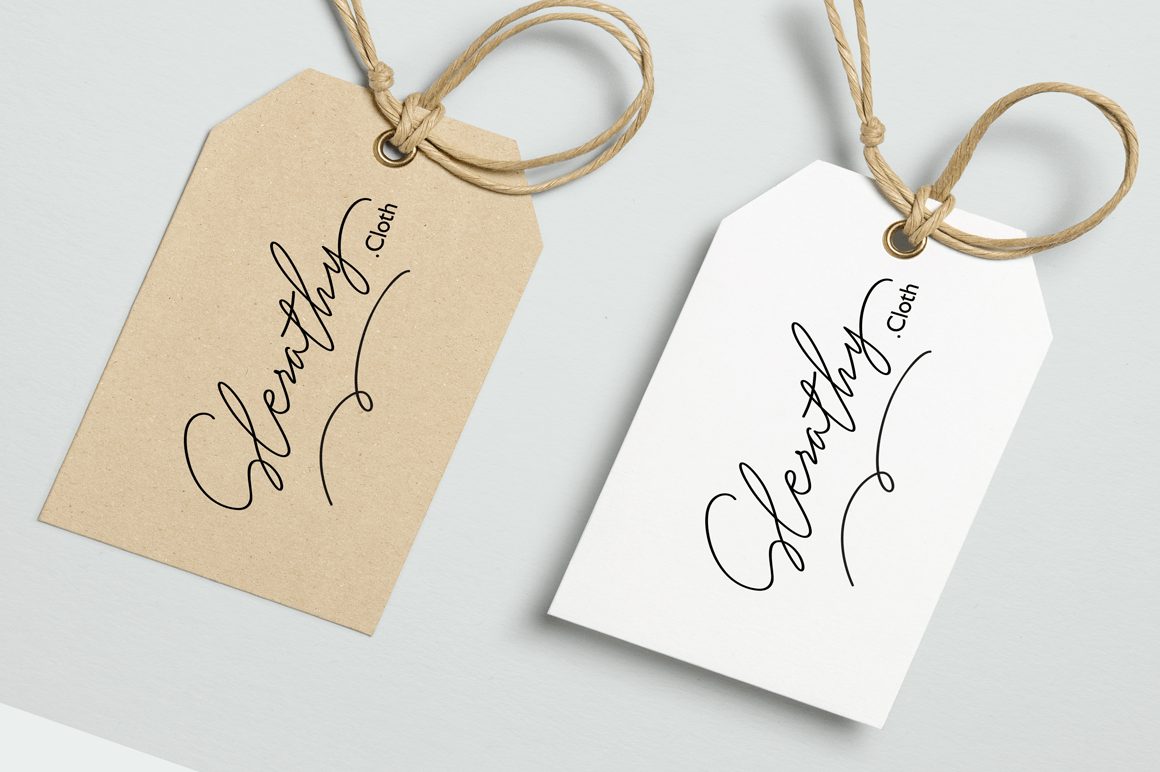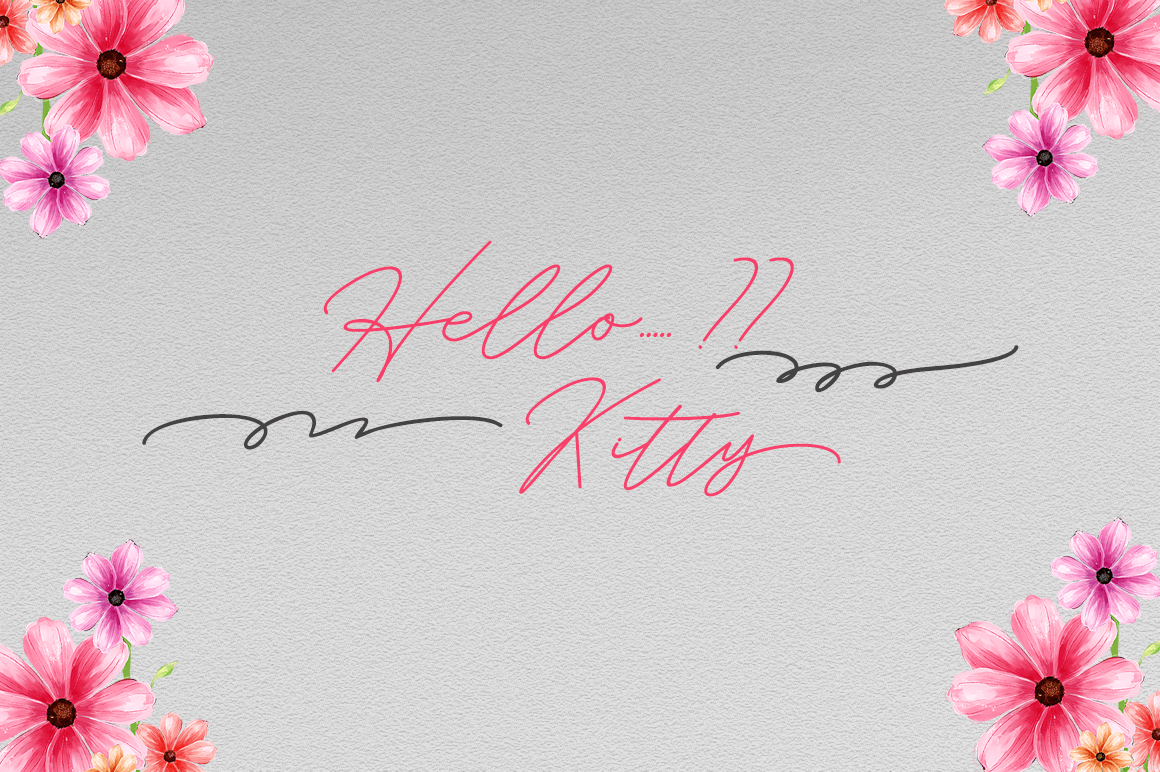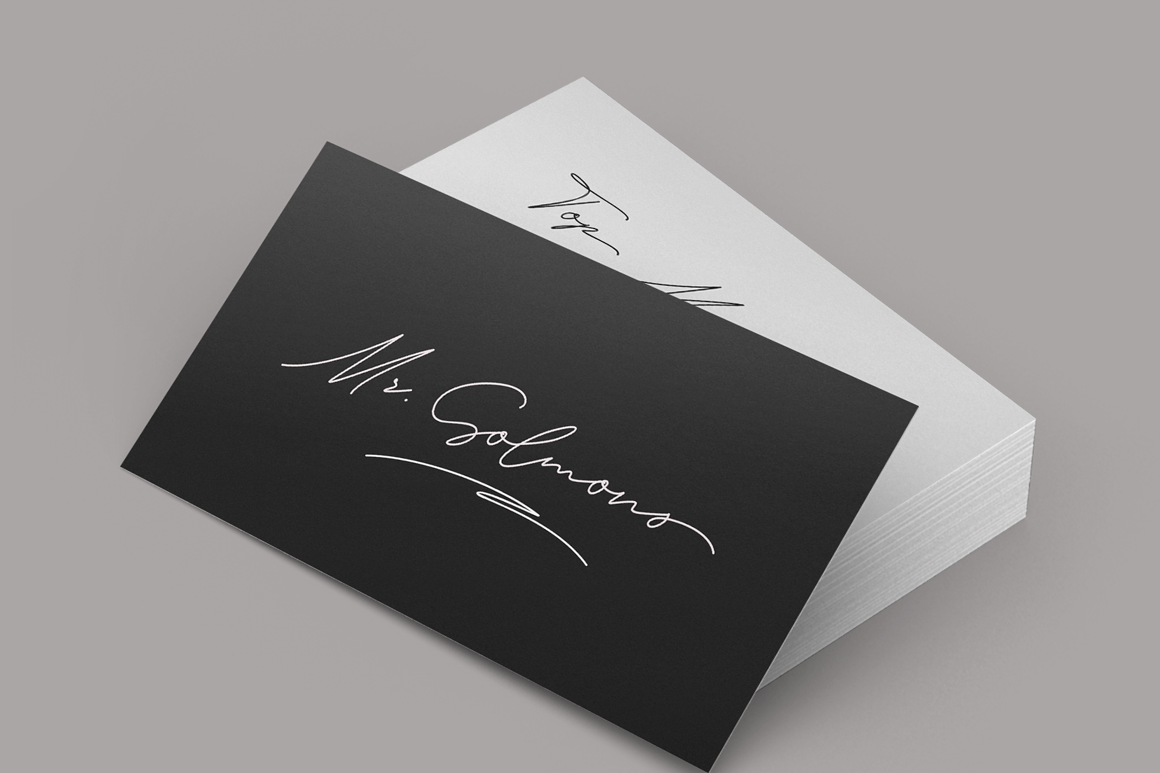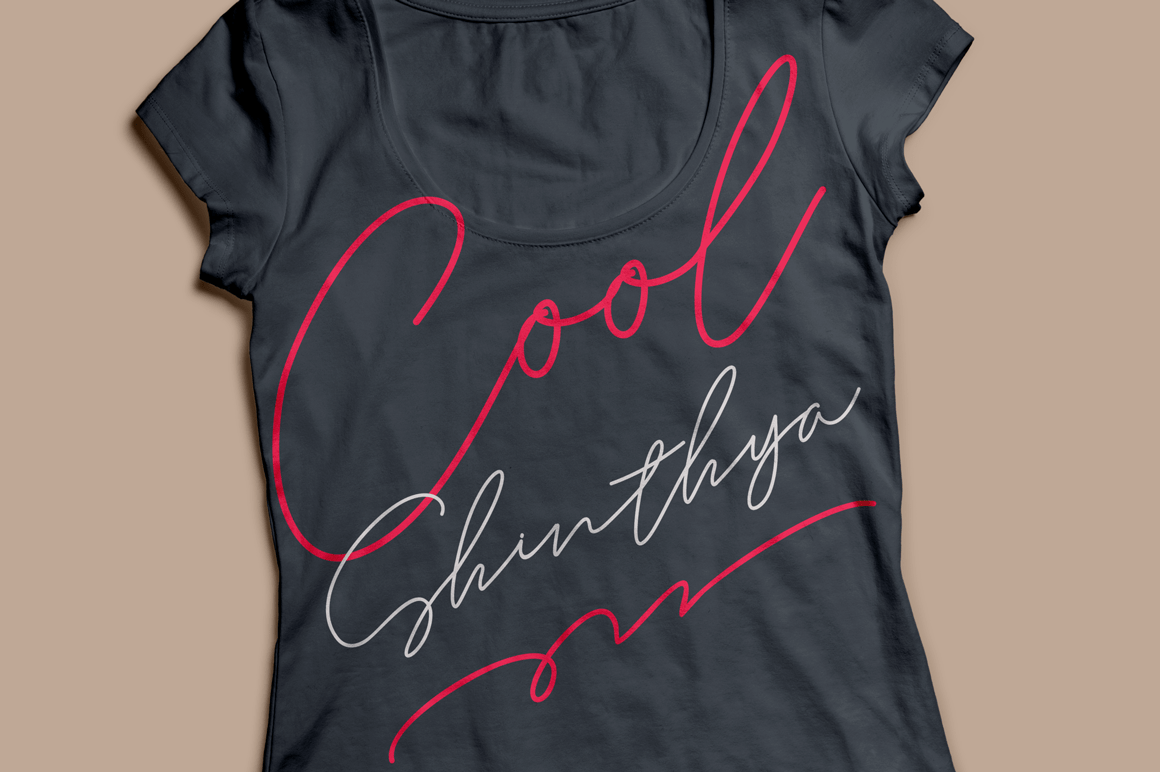
Hermes
Hermes Mono Line is a handmade script font with a natural, flowing style and distinctive monoline letterforms. Carefully drawn and digitized to preserve the character of authentic handwriting, Hermes Mono Line brings a relaxed yet elegant feel to a wide variety of creative projects.
Font Features
-
Standard Ligatures
-
Stylistic Alternates
-
PUA Unicode (Private Use Area) characters
Hermes Mono Line supports a wide range of Latin-based European languages, including:
Breton, Catalan, Czech, Danish, English, Estonian, Finnish, French, German, Hungarian, Icelandic, Italian, Latvian, Lithuanian, Norwegian, Polish, Portuguese, Romanian, Scottish Gaelic, Slovak, Slovenian, Spanish, Swedish, Turkish, and Welsh.
Hermes Mono Line is a versatile choice for headings, logos, wedding invitations, apparel, letterheads, signage, labels, editorial designs, posters, badges, packaging, branding, and many other creative projects.
The Hermes font family includes 197 glyphs.